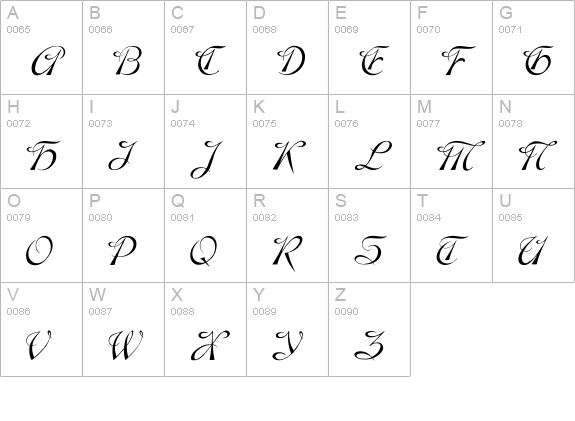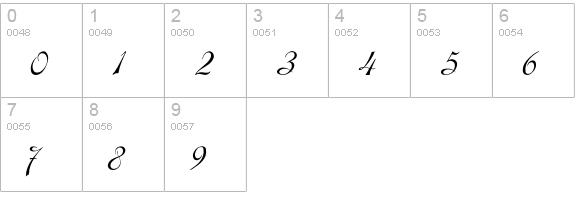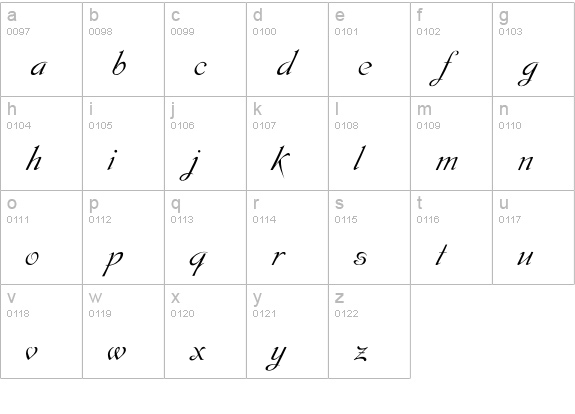
Dobkin-Script font exudes elegance and sophistication with its graceful curves and flowing strokes. This versatile script font is perfect for adding a touch of charm to invitations, logos, packaging, and more. Its classic yet modern design makes it suitable for a wide range of projects, from wedding stationery to branding materials. What sets Dobkin-Script font apart is not only its timeless appeal but also the fact that it is available for free. That's right, you can download this beautiful font at FontsMarket.com without any cost. Embrace the beauty of Dobkin-Script font in your designs and bring a touch of sophistication to your creations.